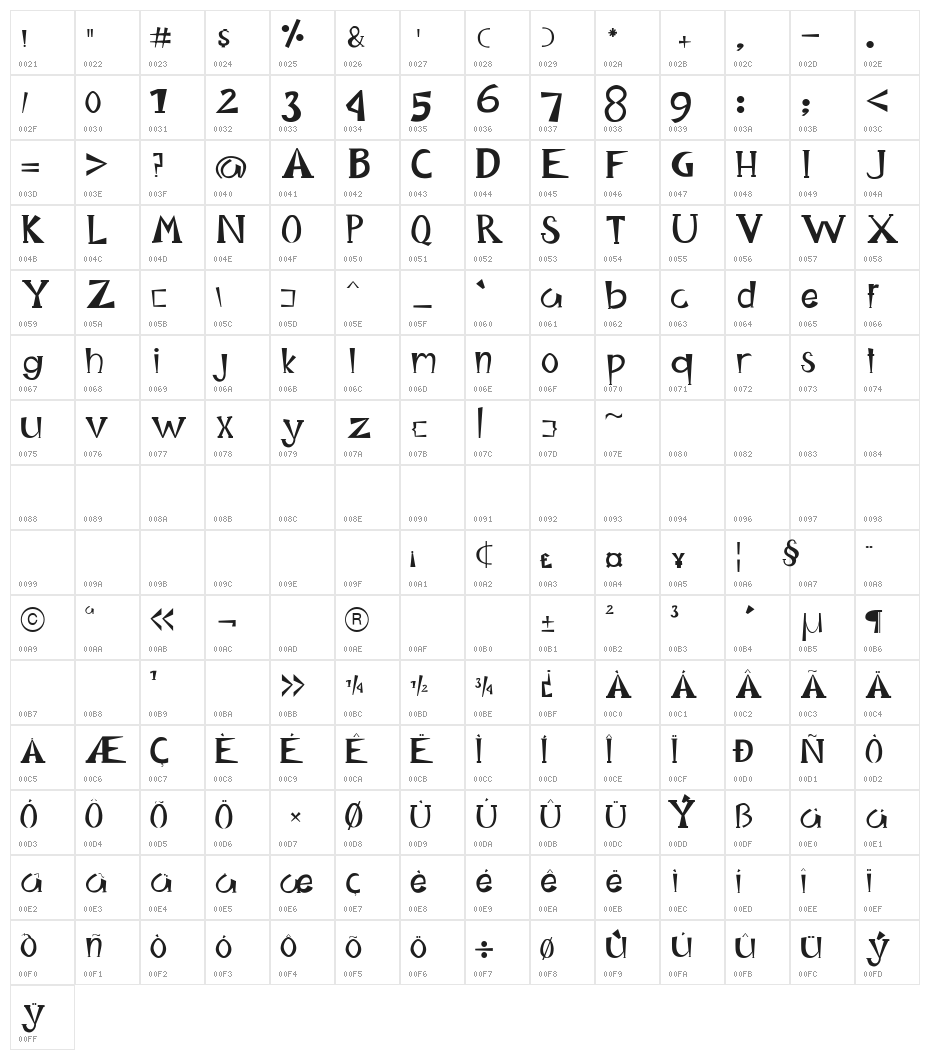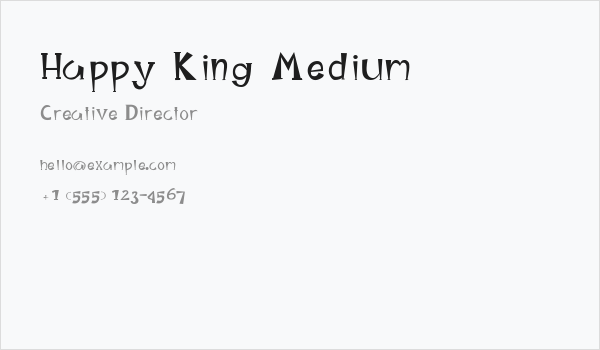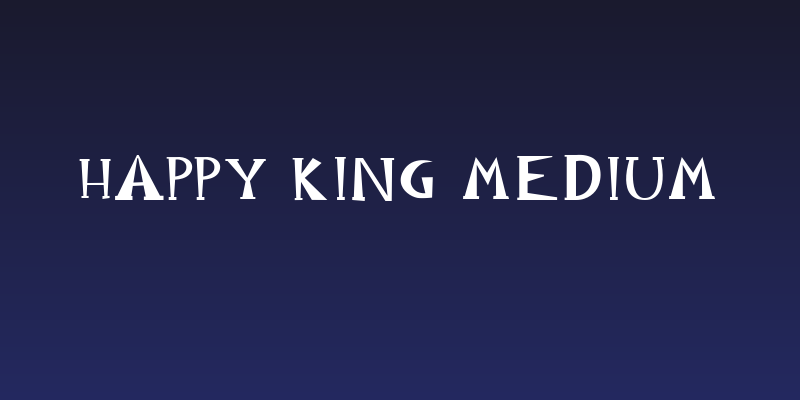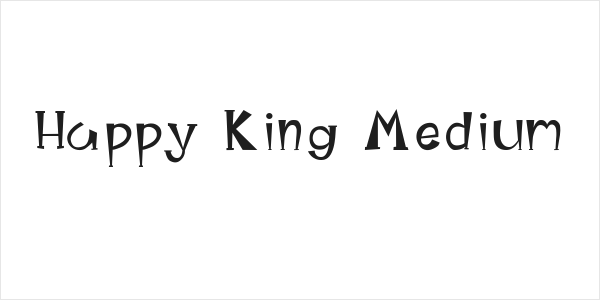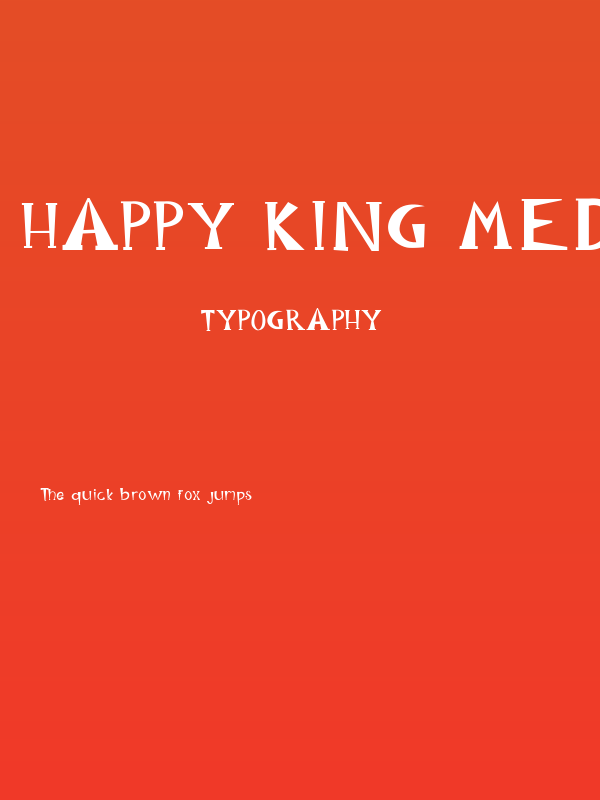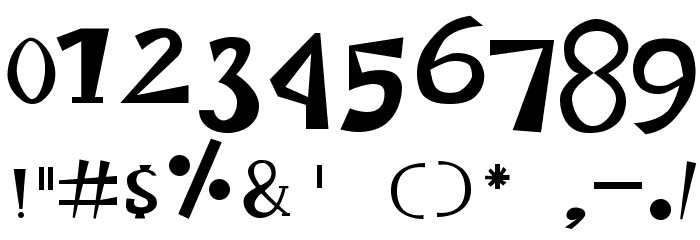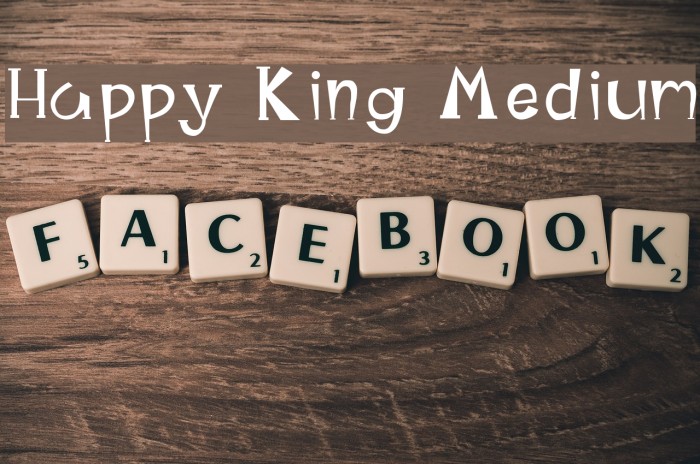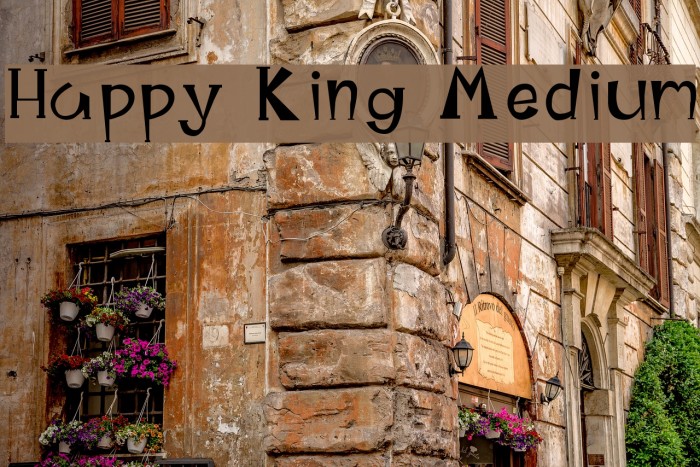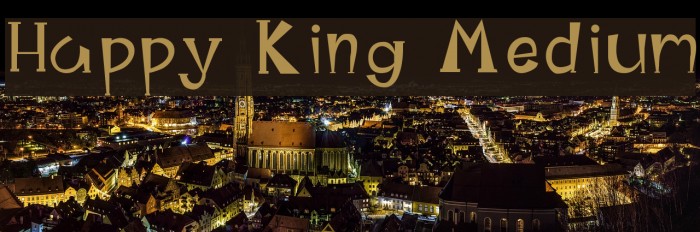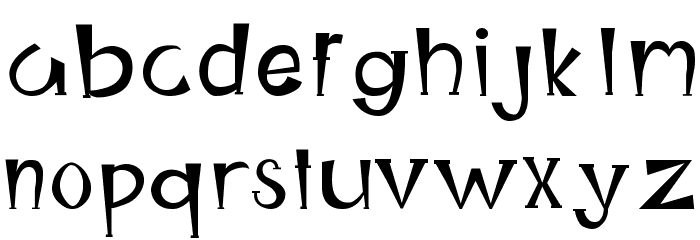
Happy King Medium Font
This font features a playful and whimsical design, characterized by its uneven strokes and quirky angles. The uppercase letters exhibit a bold presence with varying widths, while the lowercase letters maintain a consistent yet lively appearance. The numerals are distinct and bold, complementing the overall style. Special characters are creatively designed, adding to the font's unique charm. The font's style is both approachable and dynamic, making it suitable for projects that require a touch of fun and creativity.